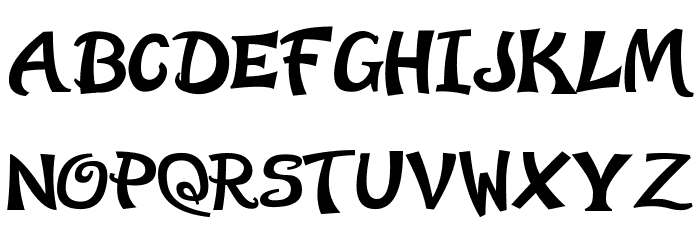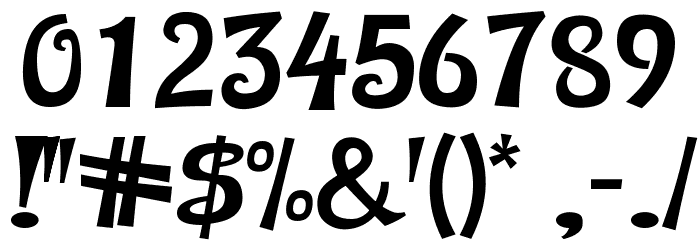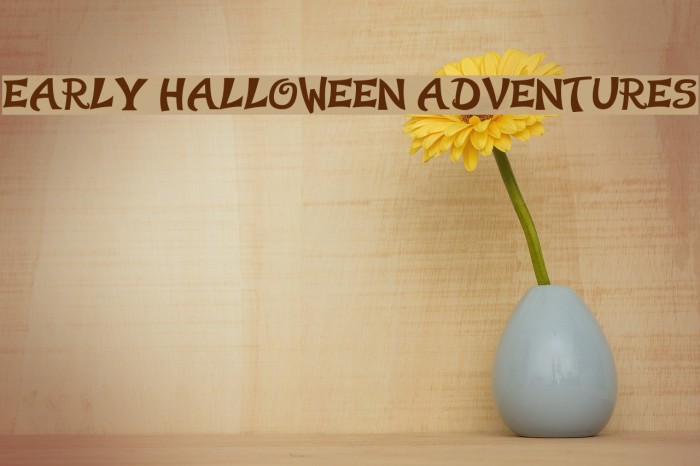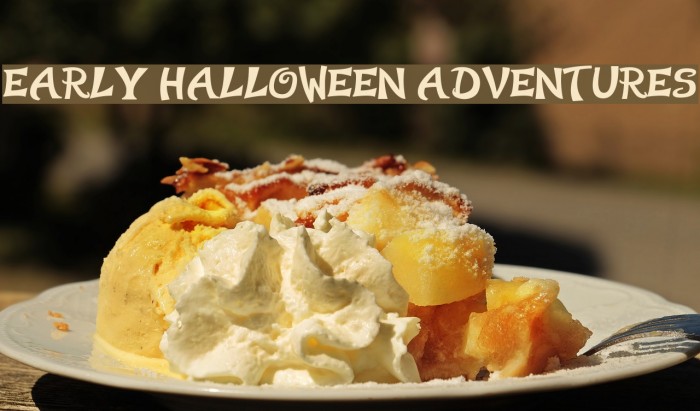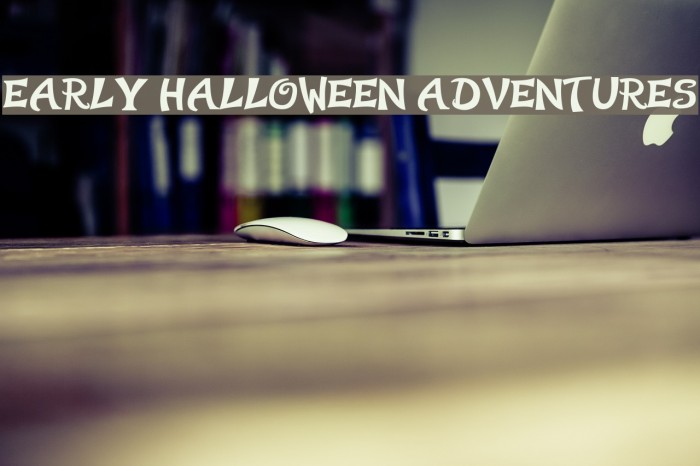
Early Halloween Adventures Font
This font features a playful and whimsical design, characterized by its bold and dynamic strokes. The letters have a slightly irregular and hand-drawn appearance, adding a sense of fun and spontaneity. The uppercase and lowercase letters maintain a consistent style, with some characters exhibiting unique twists and curves, such as the 'Q' and 'R'. The numbers are equally bold and maintain the playful theme, making them stand out. Special characters are creatively designed, enhancing the overall quirky aesthetic. This font is perfect for projects that require a lively and engaging visual impact.
A bold, playful font with a whimsical and hand-drawn style.
- Proposed Projects: Ideal for Halloween-themed designs, children's books, playful branding, and party invitations.
- Overall Style: Playful, Whimsical
- Use Case: Headlines, Posters, Branding